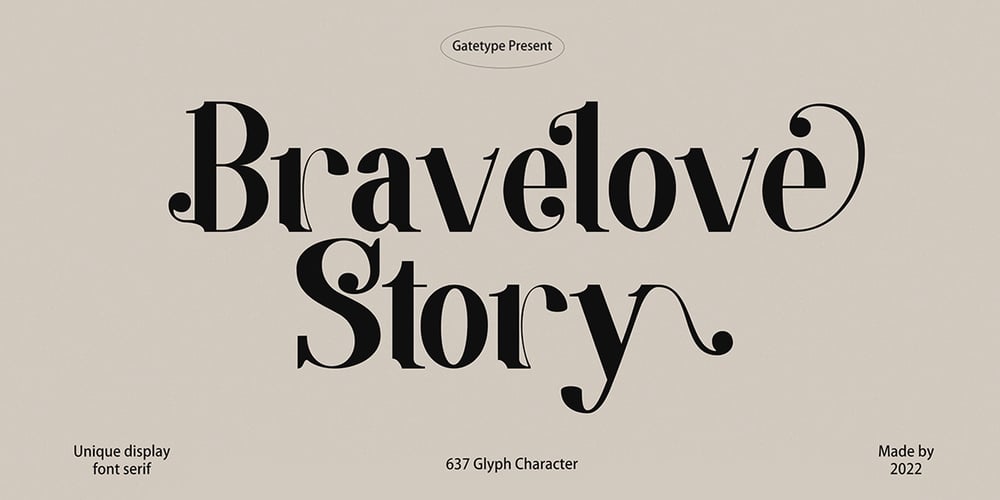
Brave love
Brave love font
Brave love Font Family was designed by khaidir and published by Gatype. Brave love contains 1 styles and family package options. The Brave love font is an elegant serif typeface with subtle details. This neat font can add modern and fashionable brand appeal. This versatile display typeface has enough character for logos and branding, as well as headlines, apparel, bridal and more. Keep it classic, or decorate it with ornate alternatives to uppercase and lowercase glyphs!Important information:To access the alternatives, you must have access to an older version of Photoshop to copy/paste the glyphs from the included PSD, OR the Glyphs Panel, which can be found in Photoshop CC or any Version of Adobe Illustrator.